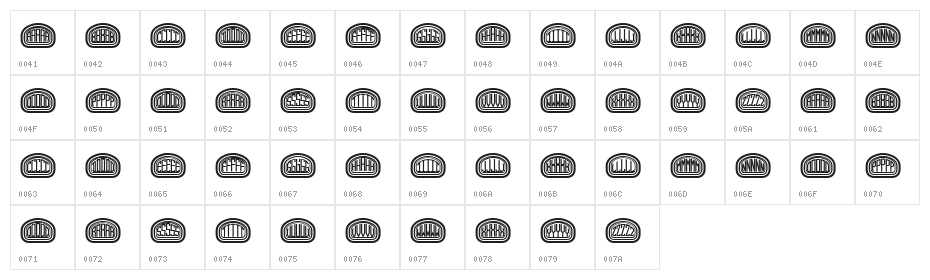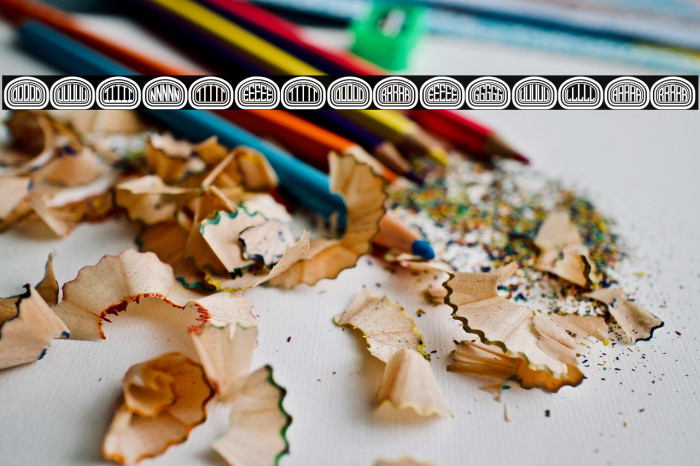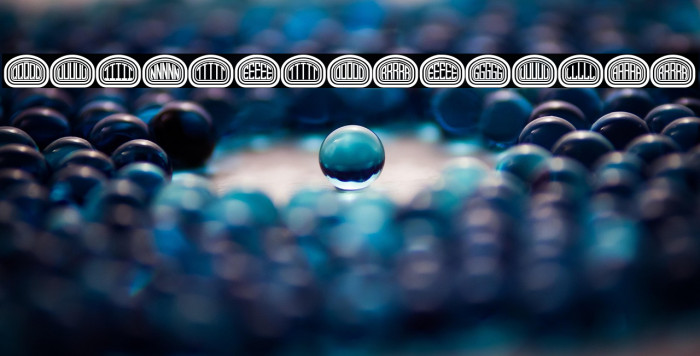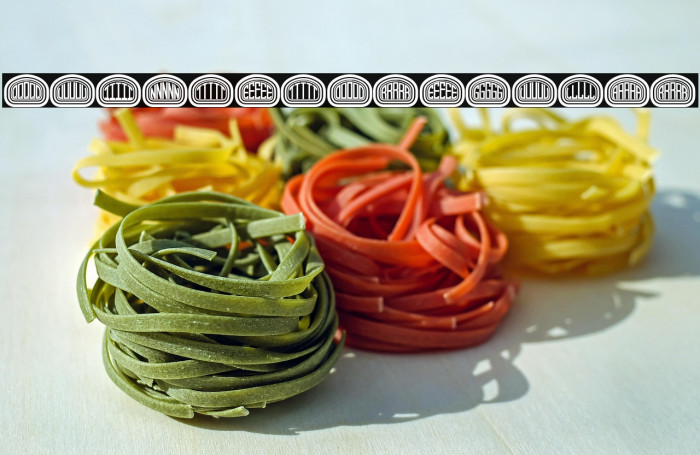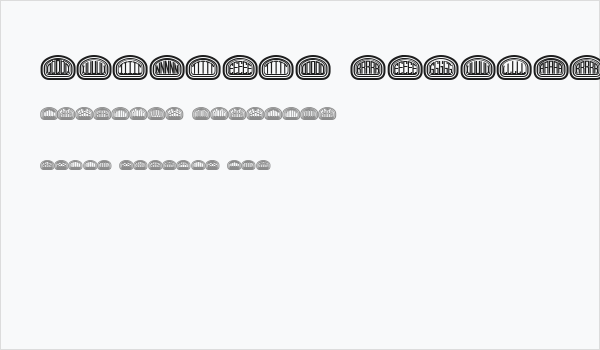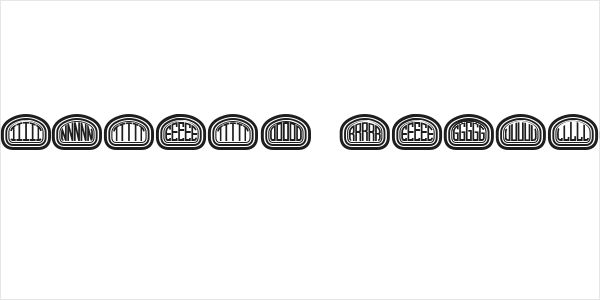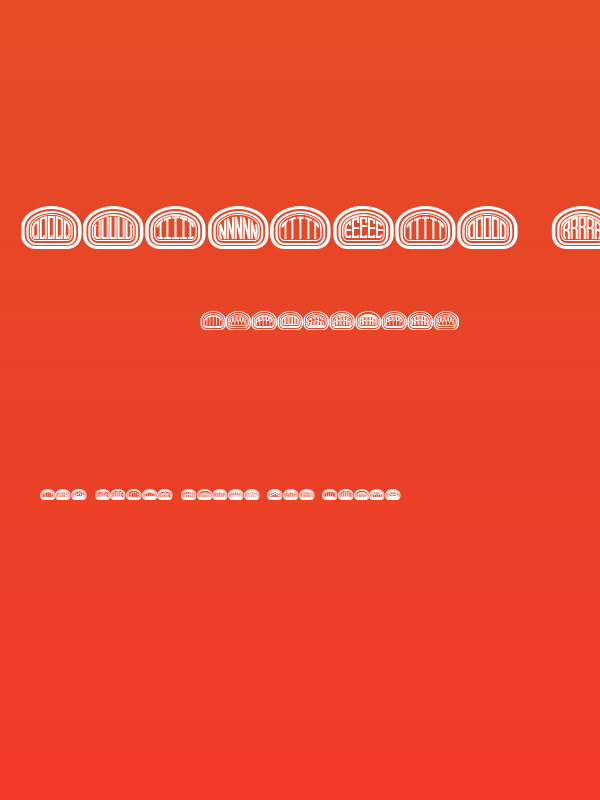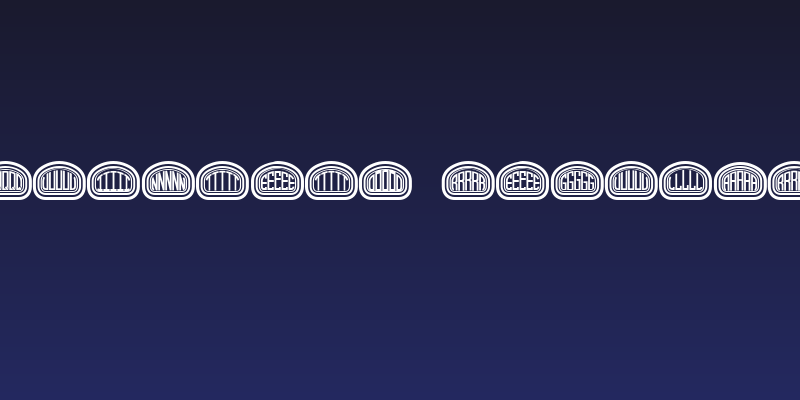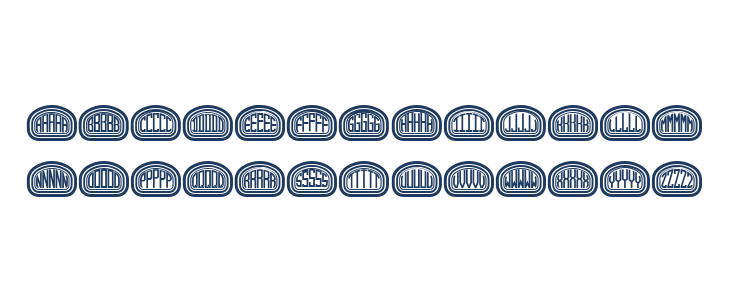
Quinteto Regular Font
Quinteto Regular Description
This font features a unique, rounded design with each character enclosed in a capsule-like shape. The letters are bold and have a playful, cartoonish appearance, making them stand out with a distinct outline. The style is consistent across uppercase and lowercase letters, as well as numbers and special characters. The uniformity in shape and size gives it a cohesive look, while the bold outlines add a layer of emphasis and visibility. This font is perfect for projects that require a fun and engaging aesthetic, such as children's books, playful branding, or creative posters.
| Overall Style | Playful, Cartoonish |
| Proposed Projects | Ideal for children's books, playful branding, creative posters, and any project needing a fun, engaging aesthetic. |